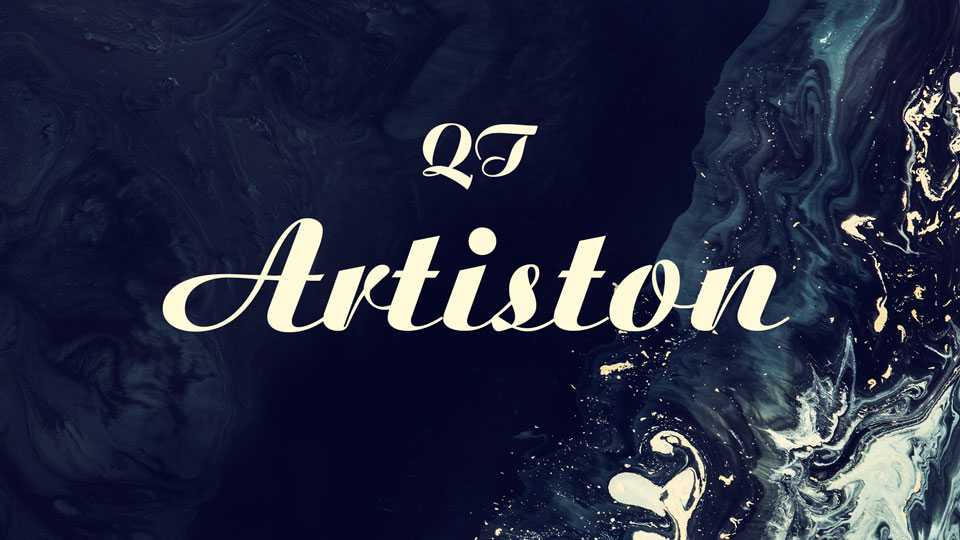
Download QT Artiston font, a beautiful vintage script with an elegant and charming flow. Artiston font looks perfect for vintage projects, badges, cards, posters and more.